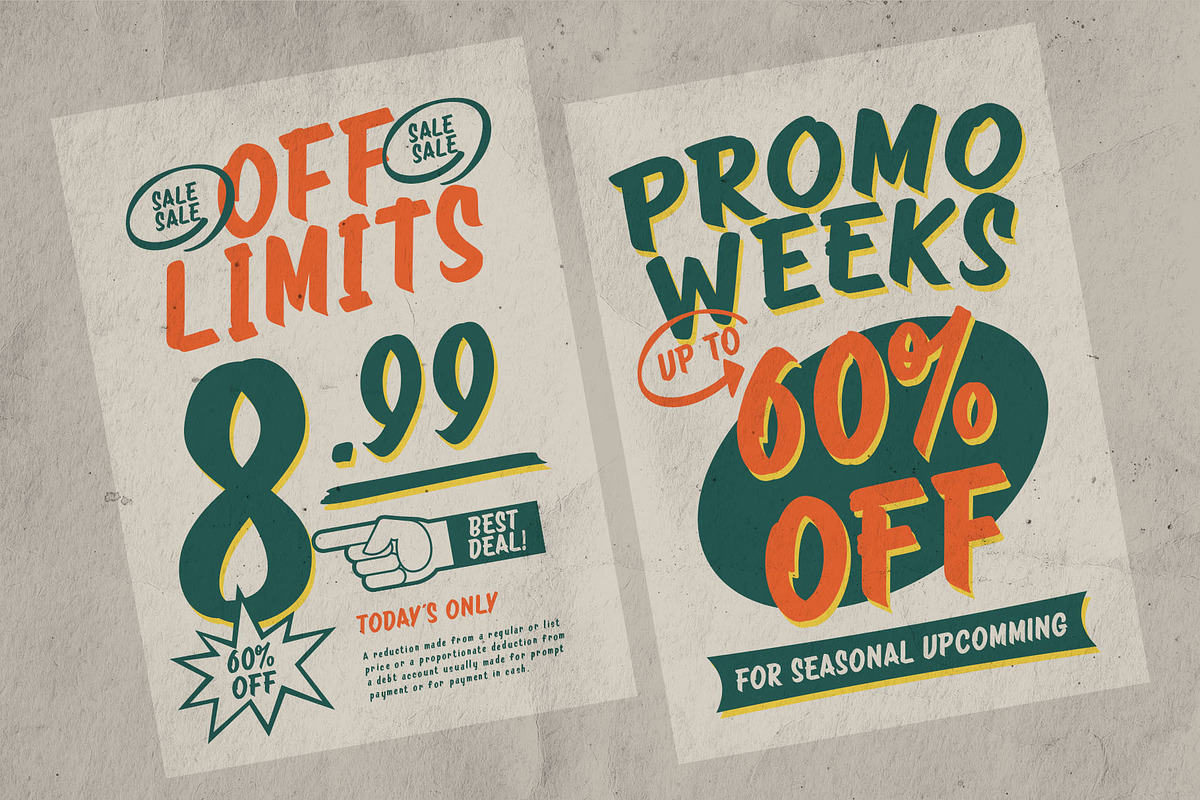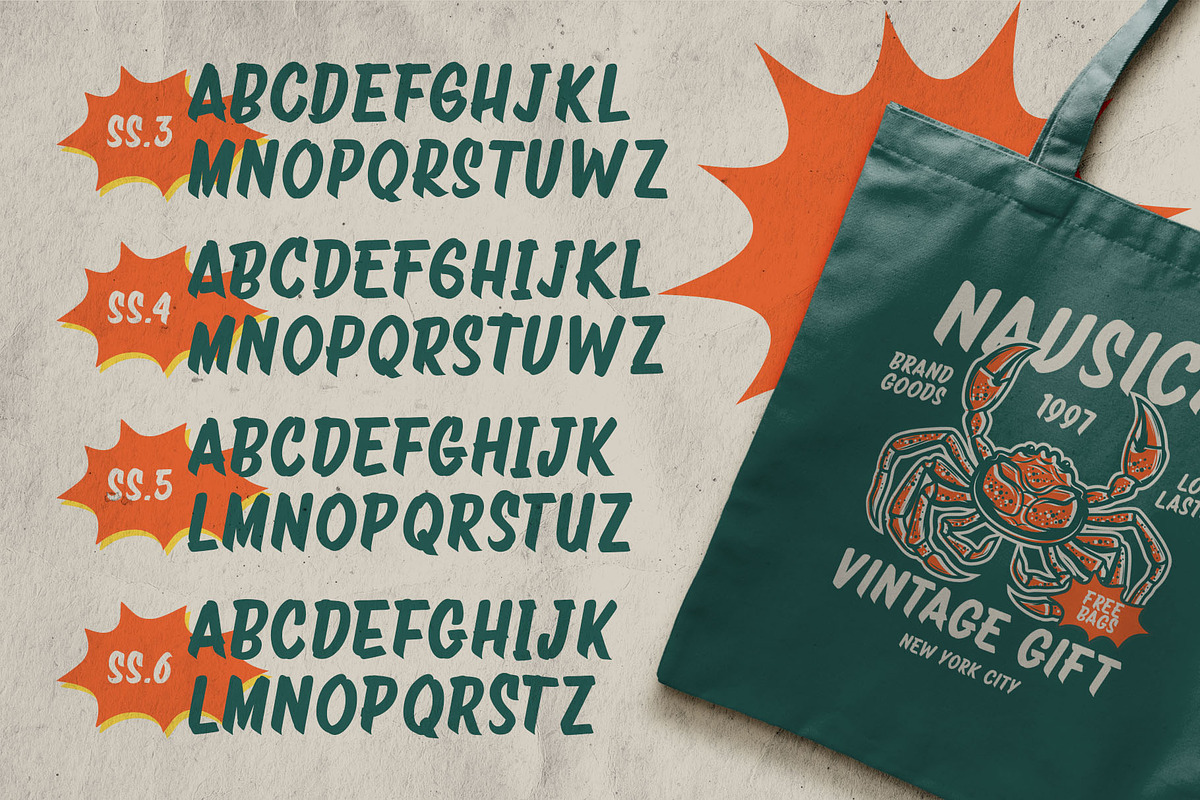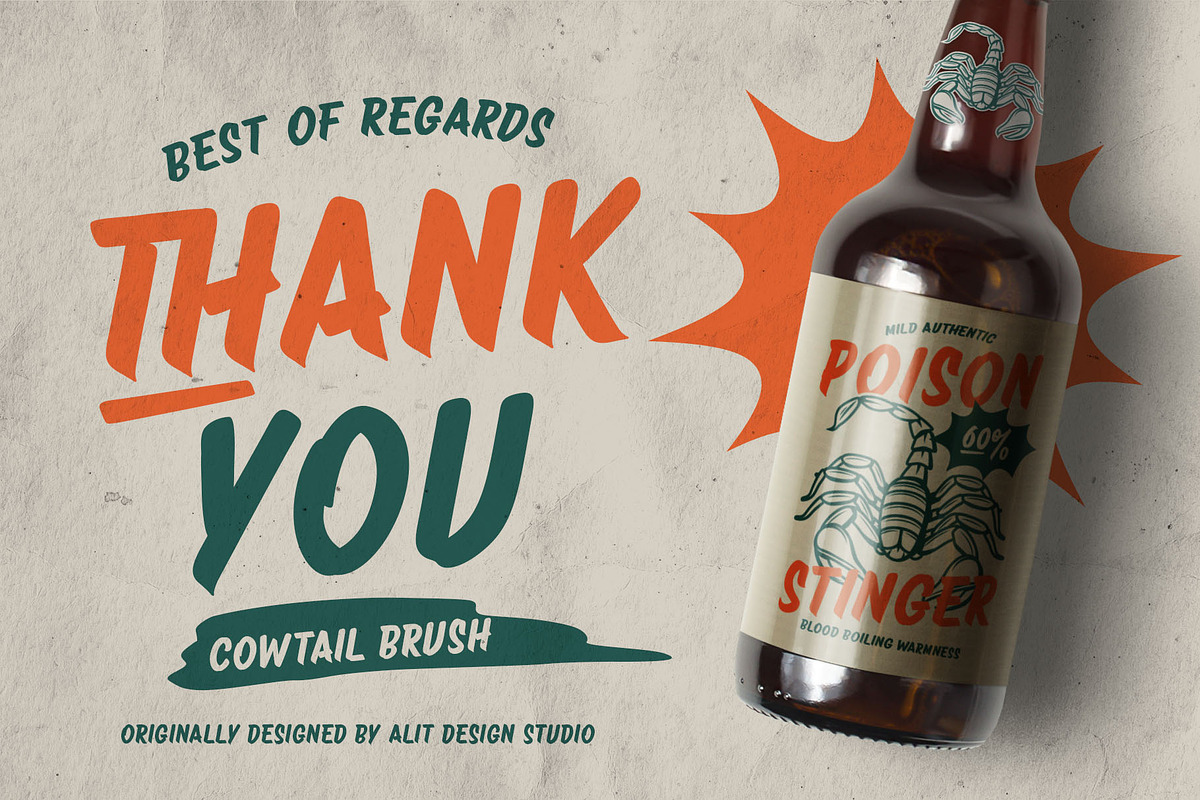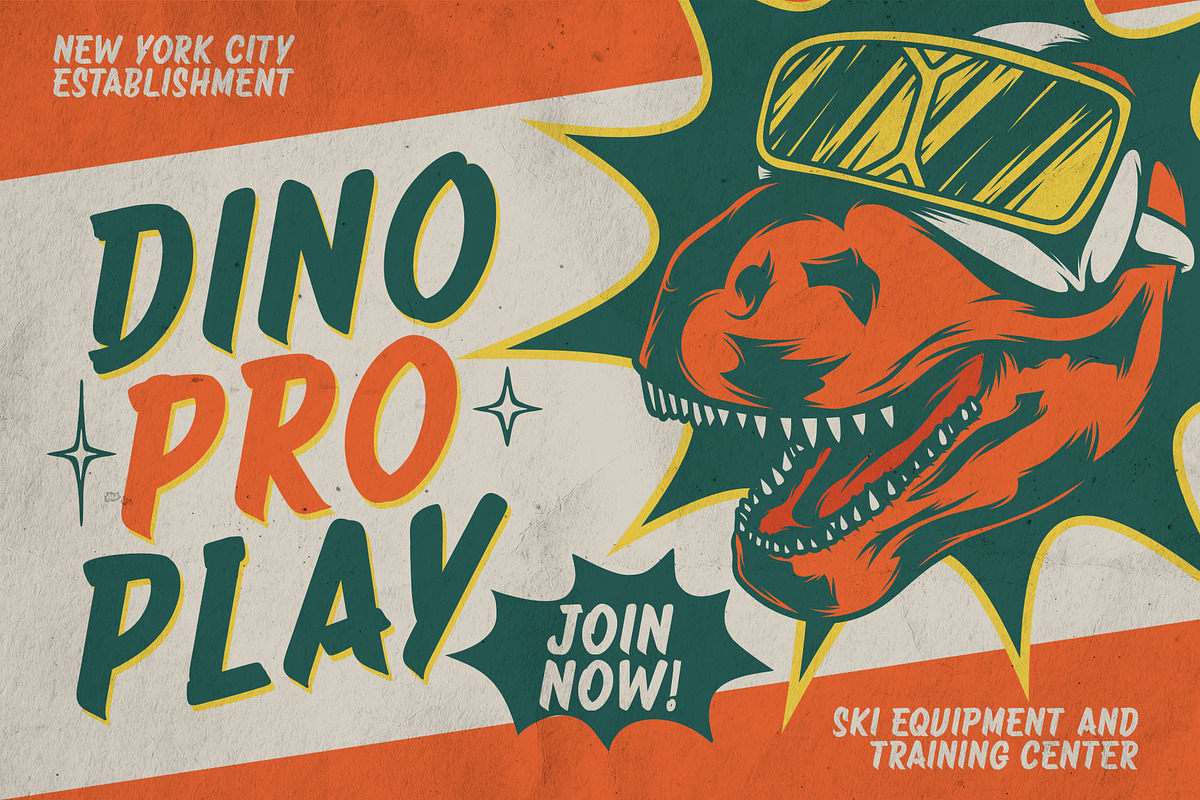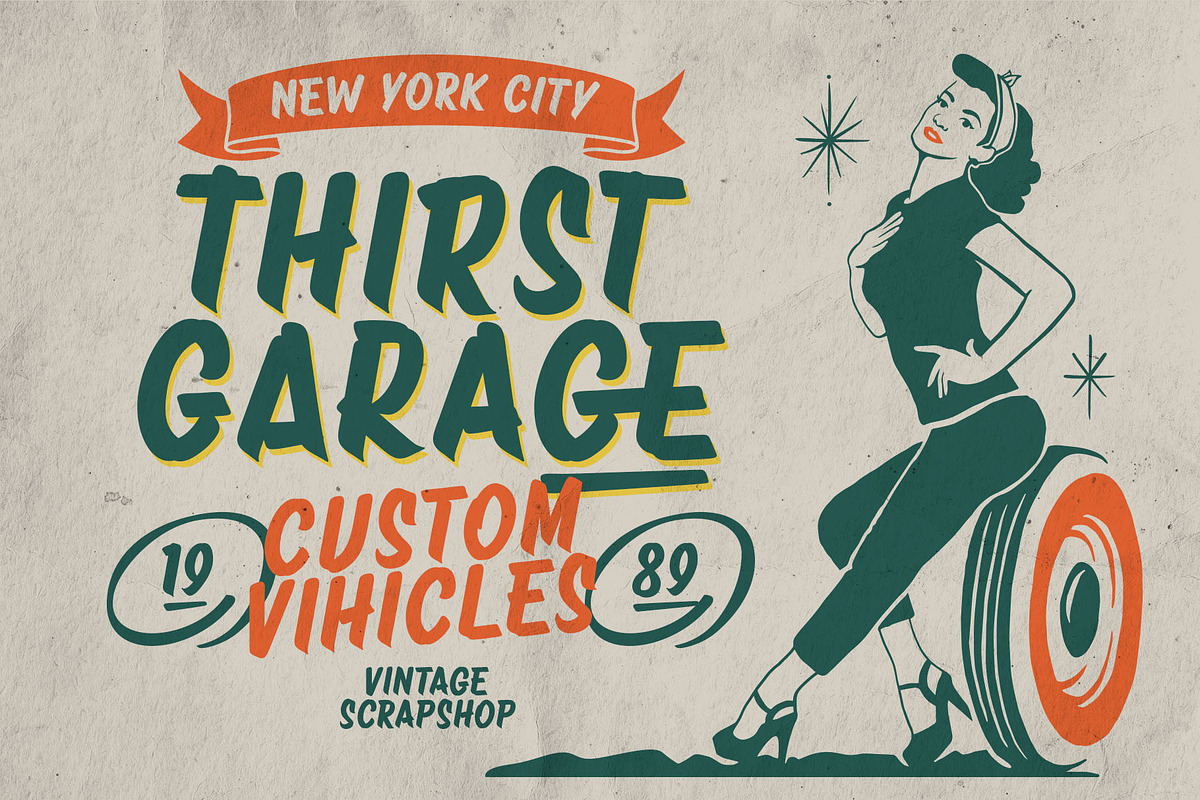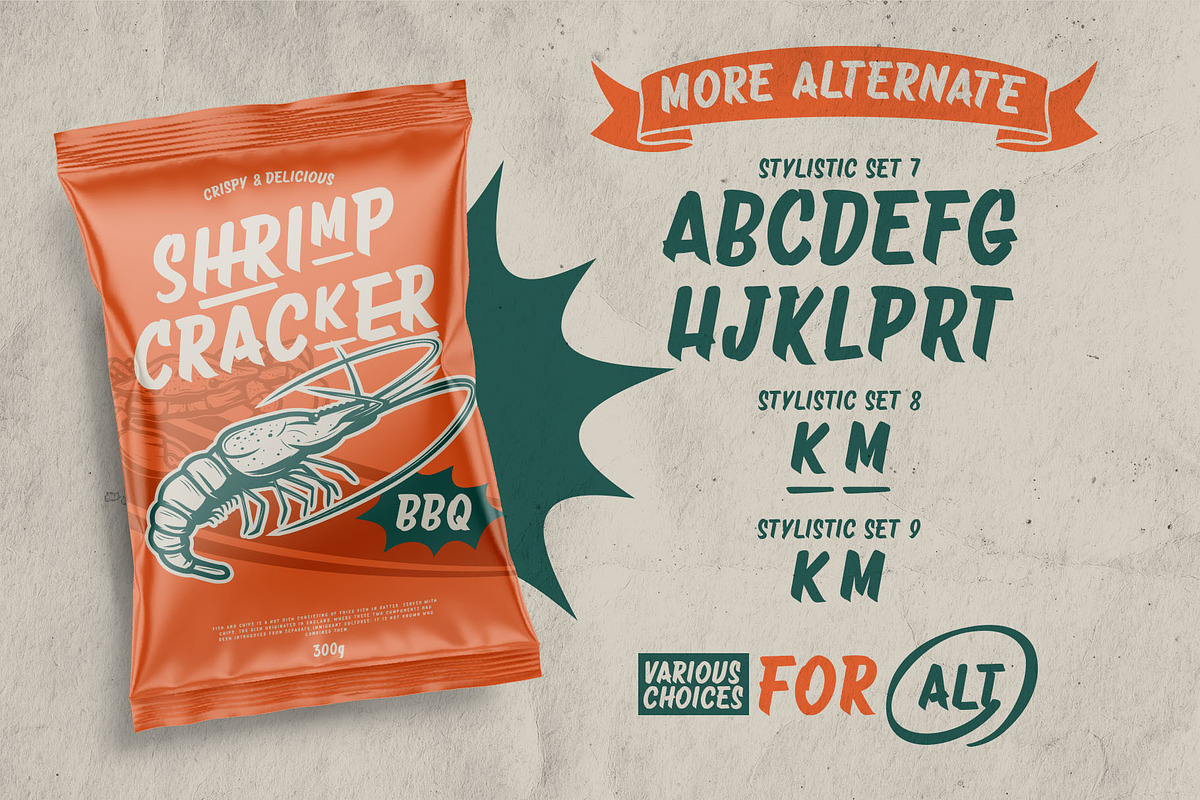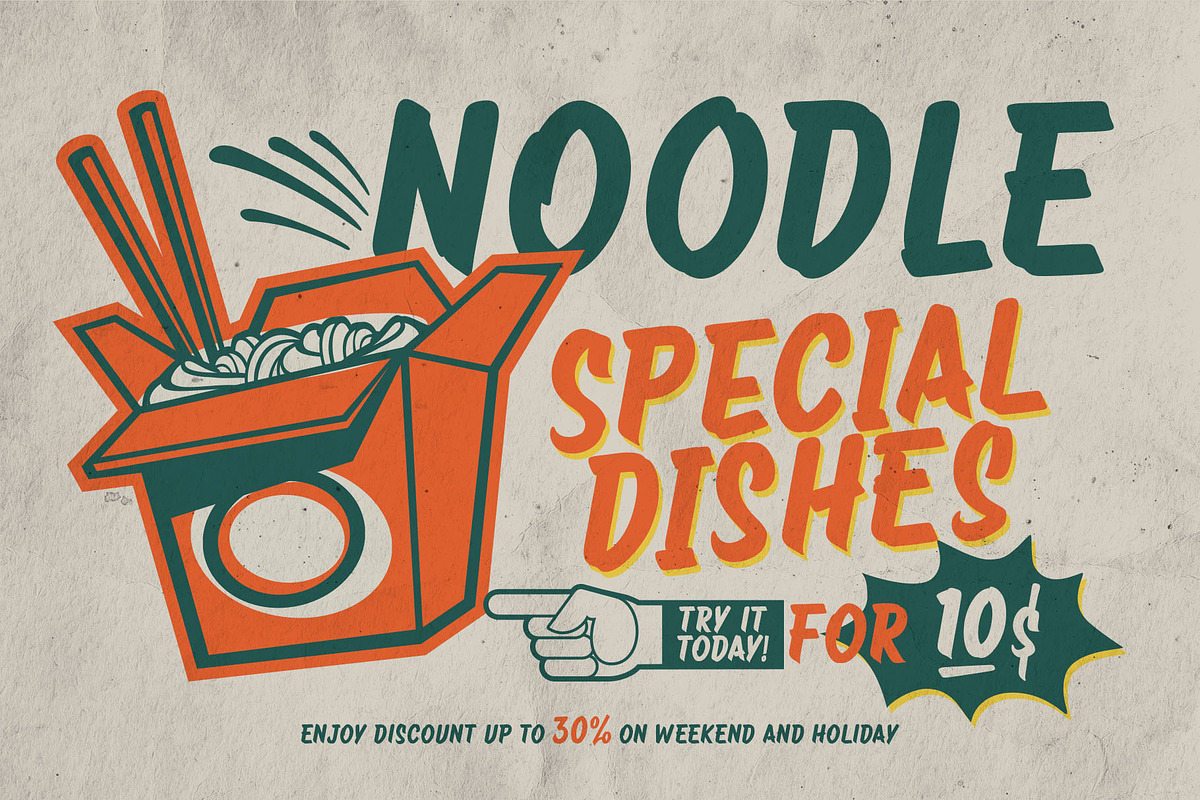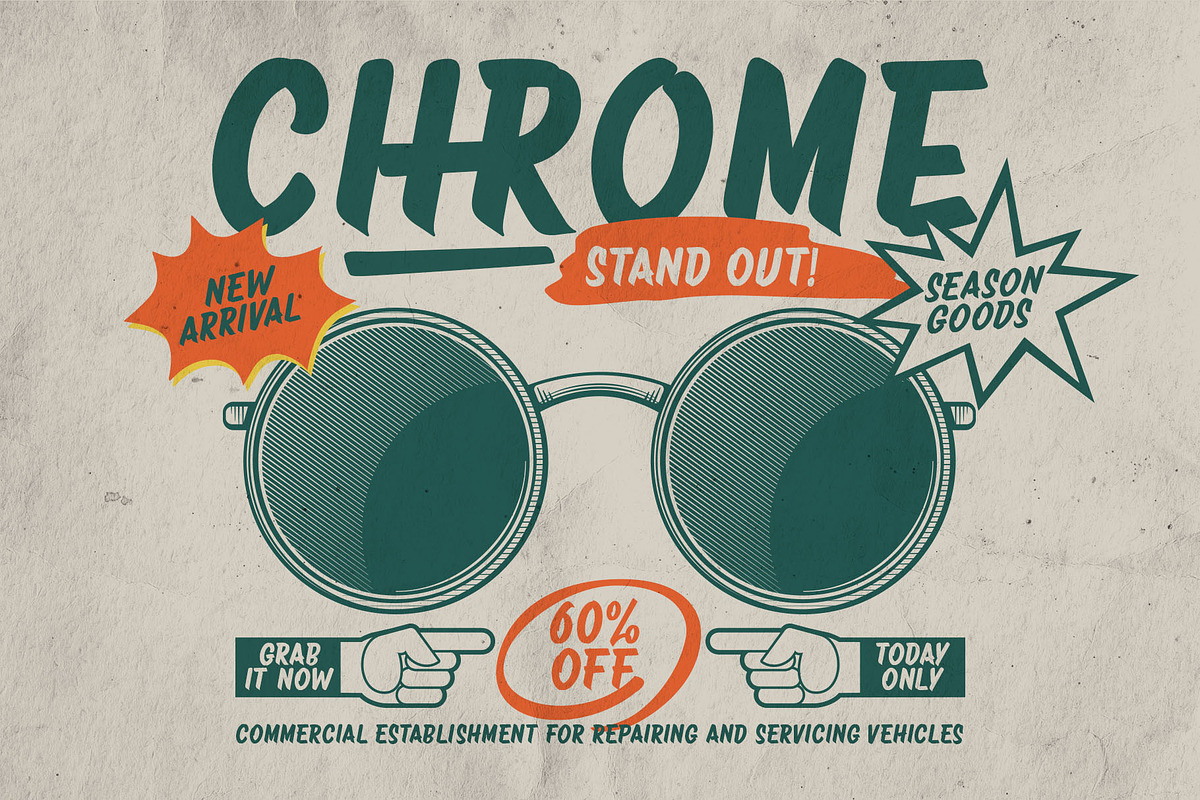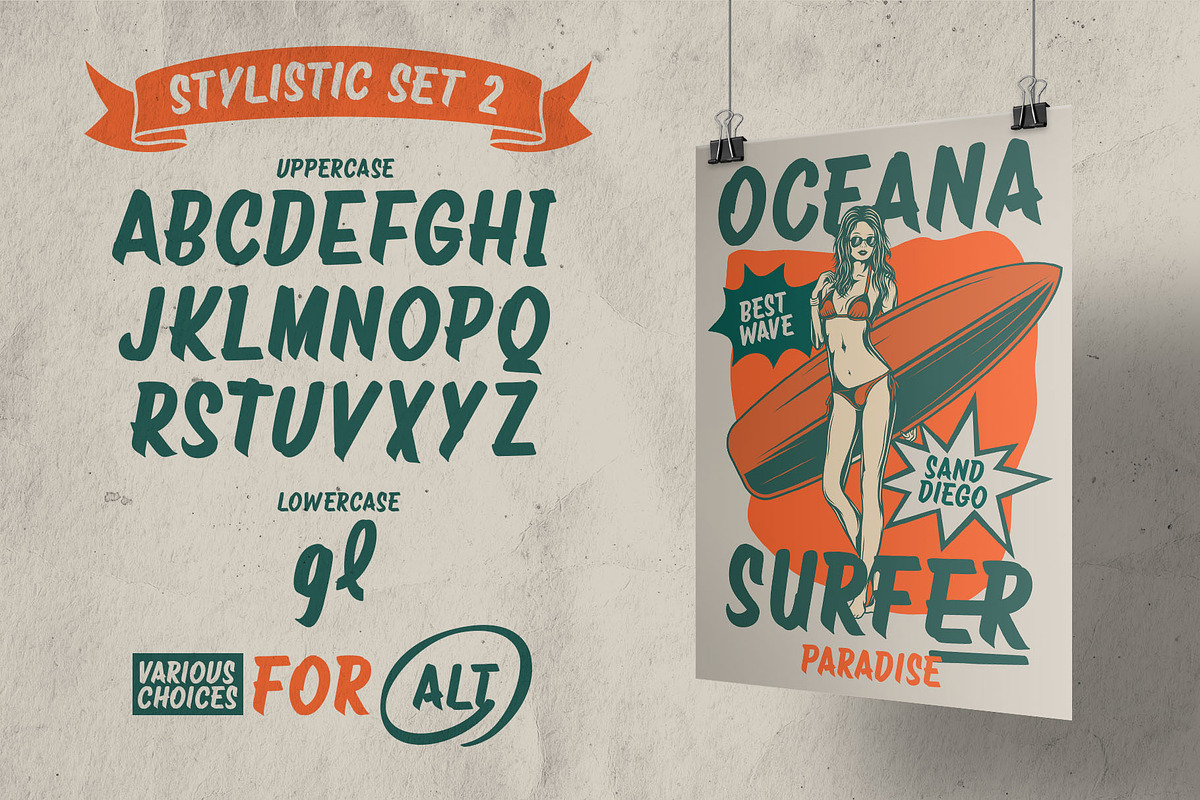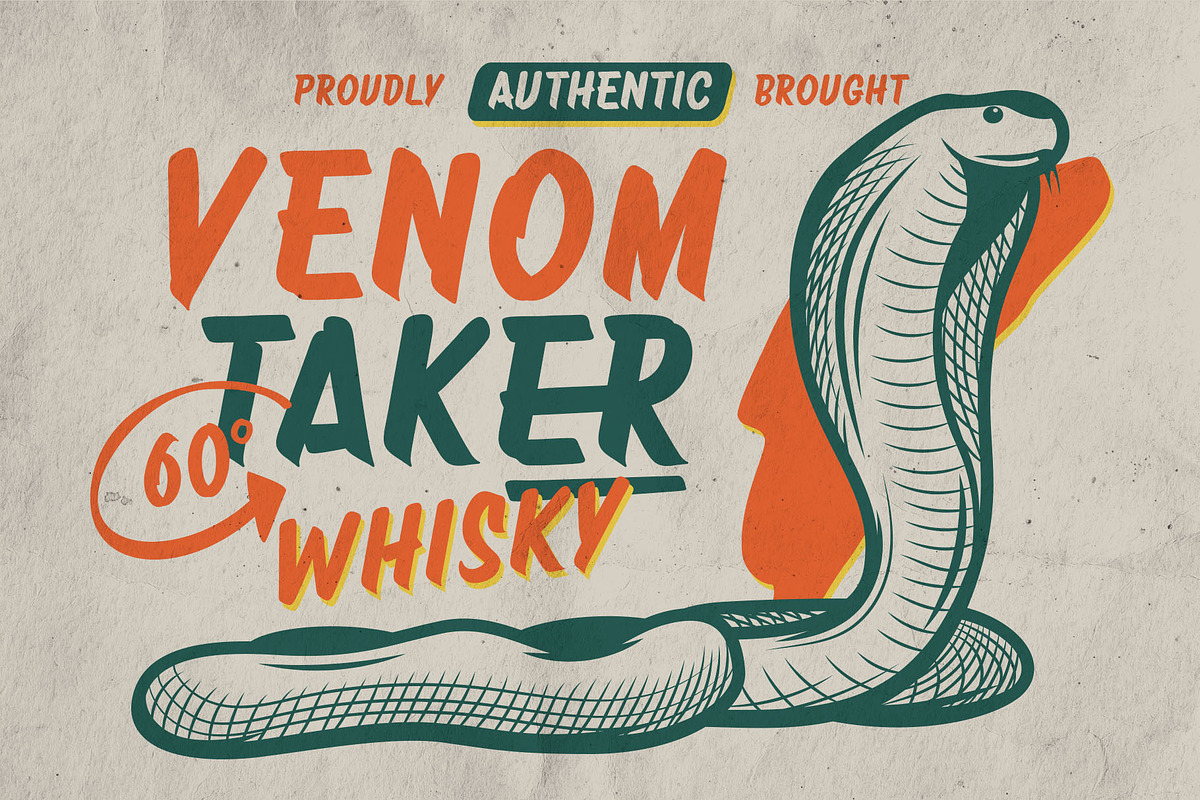
Cowtail Brush Sign Font
Cowtail Brush Sign Font is a beautifully crafted typeface inspired by vintage sign brush lettering. Designed to evoke the charm and authenticity of classic hand-painted signage, this font delivers a true handwritten look with fluid strokes and organic curves, perfect for adding a nostalgic yet timeless feel to your designs.
Featuring 803 meticulously designed characters, including a rich set of ligatures and alternate characters, Cowtail Brush Sign offers a wide variety of letter combinations, giving your work a more personalized and handcrafted touch. Whether you're creating logos, packaging, posters, or branding materials, this font brings warmth and individuality to any project.
With multilingual support, this font is versatile enough for global use, ensuring your designs can communicate across different languages. The inclusion of PUA Unicode makes it even easier to access all the special characters and glyphs, allowing for quick customization and design flexibility.
- 803 characters for a wide range of creative possibilities
- Authentic ligatures for natural letter pairings
- Multiple character choices to create a true handwritten feel
- Multilingual support for global projects
- PUA Unicode for easy access to all special characters
Perfect for anyone looking to add a touch of retro charm to their work, Cowtail Brush Sign Font captures the essence of vintage brush lettering in an easy-to-use and fully customizable typeface.